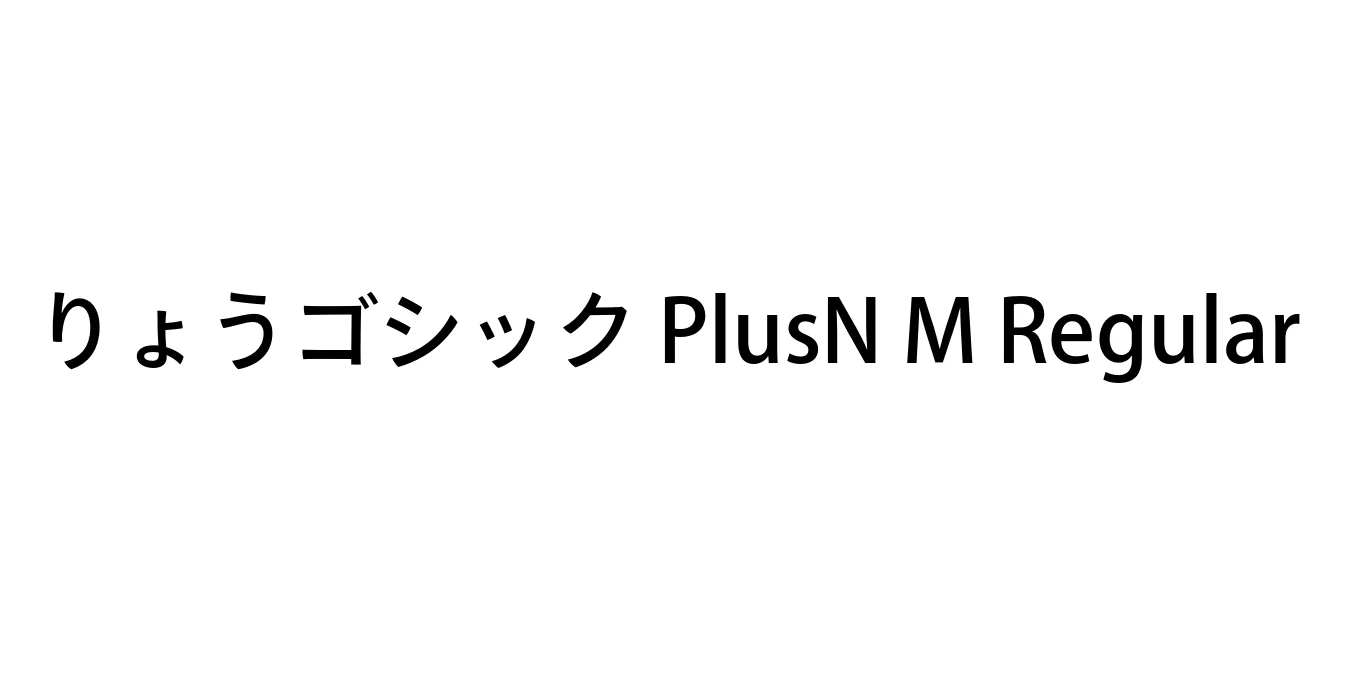
りょうゴシック PlusN M Regular
Designed by Ryoko Nishizuka
| Font Name | りょうゴシック PlusN M |
| Category | Japanese Sans-serif (Gothic) |
| Designer | Ryoko Nishizuka |
| Similar Fonts | Kozuka Gothic, Hiragino Kaku Gothic, Noto Sans JP |
Ryo Gothic PlusN M Regular is a sophisticated Japanese sans-serif typeface designed by Ryoko Nishizuka as part of the Adobe Originals collection. It was meticulously crafted to serve as a modern, high-legibility Gothic font that harmonizes traditional Japanese kanji structures with a contemporary, clean aesthetic. The 'PlusN' variant signifies its compliance with the JIS2004 character set standards, making it a reliable choice for modern digital publishing and professional typesetting.
Known for its elegant proportions and open counters, Ryo Gothic is highly regarded in the design industry for its versatility across various media. The Medium weight provides a perfect balance of stroke thickness, ensuring that text remains readable and visually appealing in both print editorial layouts and high-resolution digital interfaces. Its neutral yet refined character makes it an essential tool for designers seeking a professional Japanese typeface.
りょうゴシック PlusN M Regular Best Uses
Excellent for magazines, journals, and professional book layouts.
Ideal for creating clean and authoritative corporate branding.
Highly effective for body text and navigation on modern websites.
Provides clear rendering for menus and content on small screens.